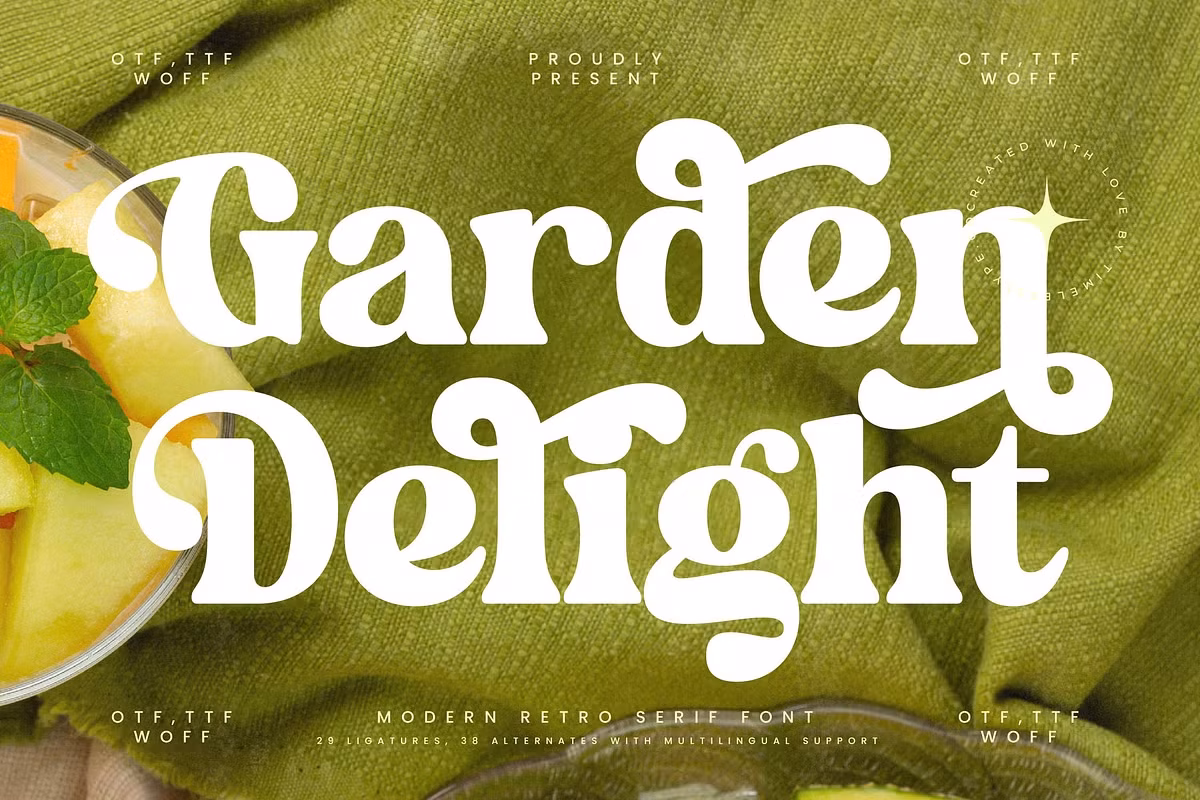
The Garden Delight Modern Retro Serif Font Free Download is a stylish and nostalgic serif typeface that combines the charm of retro design with modern appeal. Perfect for branding, logos, posters, social media graphics, and more, this font adds a playful yet refined touch to your creative projects.
With its distinctive, bold letterforms and a blend of retro and modern styles, Garden Delight is ideal for designs that need a strong, unique typographic presence. It includes uppercase and lowercase letters, numbers, punctuation, and multilingual support, making it versatile for a variety of applications.